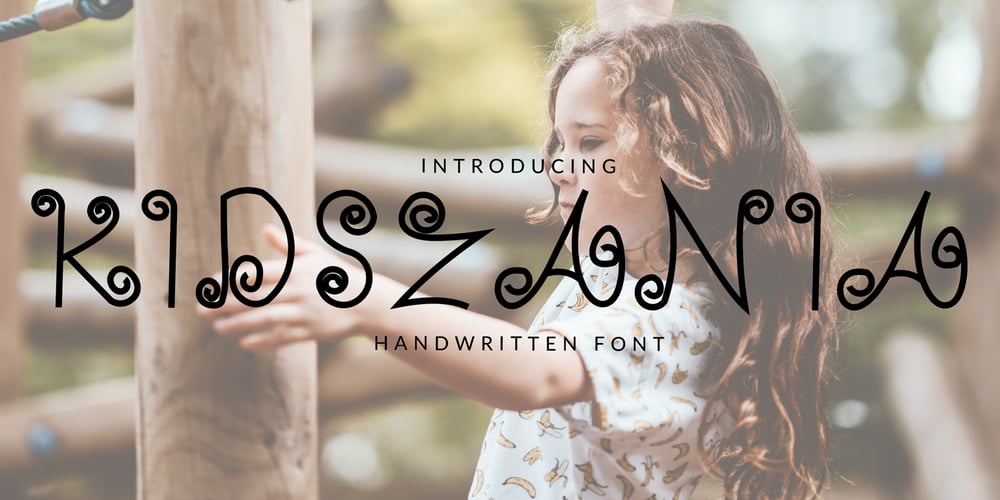
Kidszania Font Family was designed by Andrea Zudip Aggasi and published by Nirmalagraphics. Kidszania contains 1 styles and family package options. I’m Andrea, creator at Nirmalagraphics and I want to present my latest font called “Kidszania”. I took the name from a children’s playground filled with writings posted on the wall. I found a child’s writing style that is funny, looks clean and natural. I tried a rough sketch of a font that resembled the writing of the child, then I modified it to become the “Kidszania” font. This font can be used for any needs, especially children-themed designs.